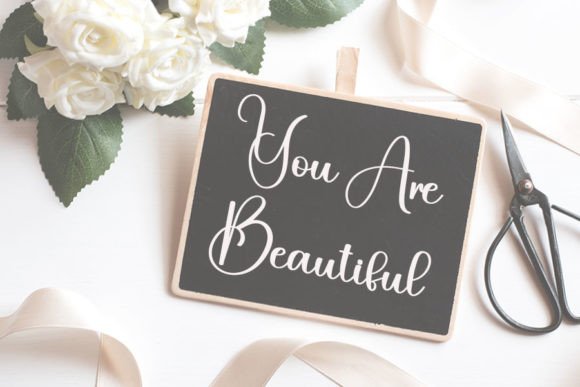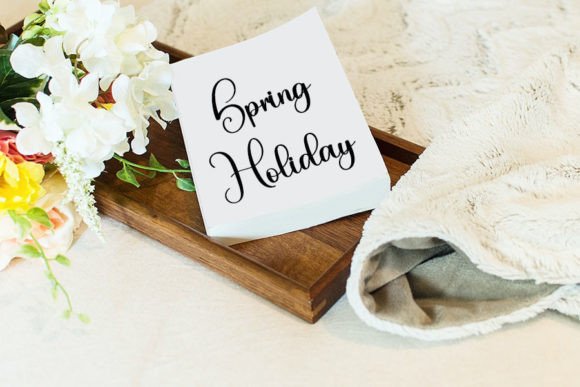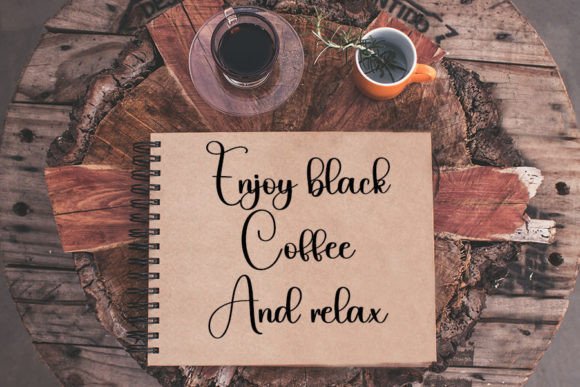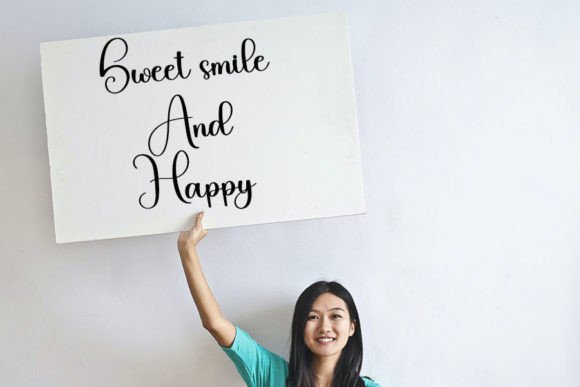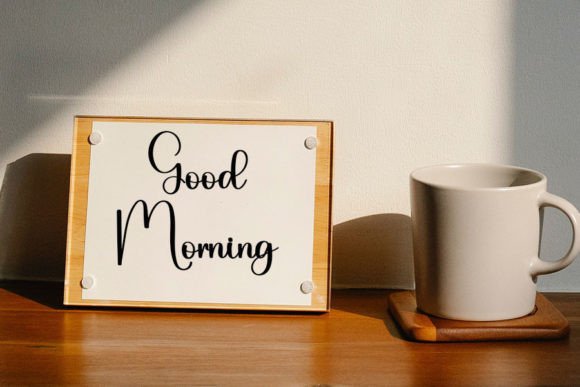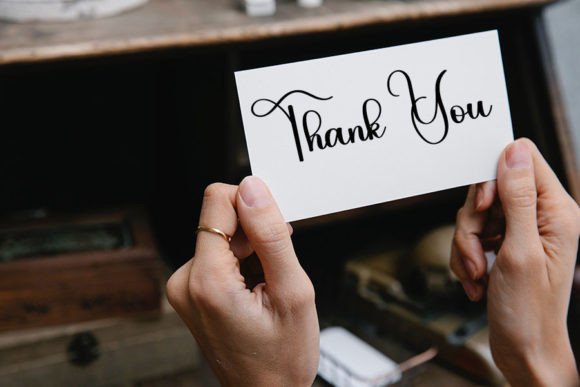
The Darling Font: A Sweet and Beautiful Handwritten Delight
I’ll never forget the time I was working on a luxury branding project for a high-end jewelry client. I had spent hours perfecting the logo design, but something was missing. The font I had chosen just didn’t have the elegance and sophistication I was looking for. That’s when I stumbled upon the Darling font, a sweet and beautiful handwritten font that features characters that dance along the baseline. It was love at first sight! ✨
An Honest Review of Darling Font
- ✨ The elegant, cursive script that adds a touch of luxury to any design project
- ✅ The unique character placement that creates a beautiful, hand-drawn feel
- 💫 The versatility of the font, which works well for both titles and body text
- 🎉 The wide range of OpenType features, including glyphs and stylistic alternates
While Darling font is an amazing addition to any design project, there are a few things to keep in mind. 🤔
- ⚠️ The font can be a bit tricky to read at smaller sizes, so it’s best to use it for titles or headings
- ⚠️ Some of the more intricate details may get lost when used for body text or at smaller sizes
A Practical Guide to Using Darling Font
The Backstory of Darling Font
The Darling font was created by a talented type designer who wanted to create a font that was both elegant and playful. Inspired by the beauty of handwritten script, the designer carefully crafted each character to create a unique and sophisticated font. 💫
| Font Name | Darling Font |
| Author | Harlek studio |
Q: What is the Darling font?
A: The Darling font is a sweet and beautiful handwritten font that features characters that dance along the baseline.
Q: What can I use the Darling font for?
A: The Darling font is perfect for a wide range of design projects, including luxury branding, packaging, and advertising.
Q: Is the Darling font easy to read?
A: The Darling font can be a bit tricky to read at smaller sizes, so it’s best to use it for titles or headings.